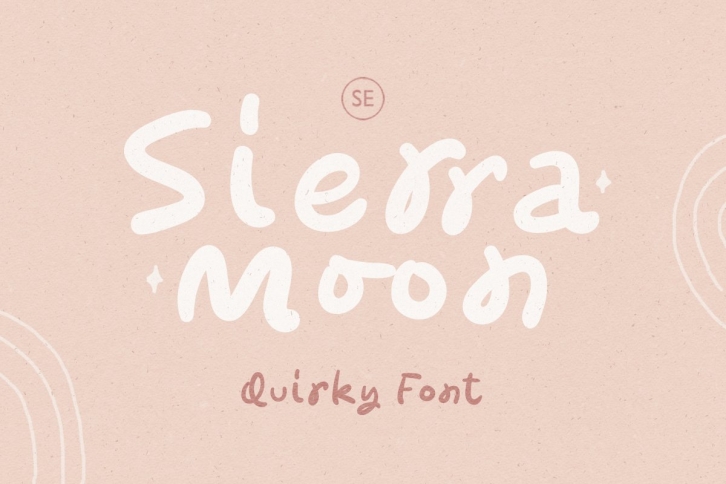
Sierra Moon is a beautiful font that was designed by Saridezra. It's a great choice for designers and creatives who need such a font. It was released on March 10, 2021 and the file size is 1.91 MB. Sierra Moon may give a more youthful, expressive and casual look to your project. It is a very beautiful, refined, elegant, and high-quality font.